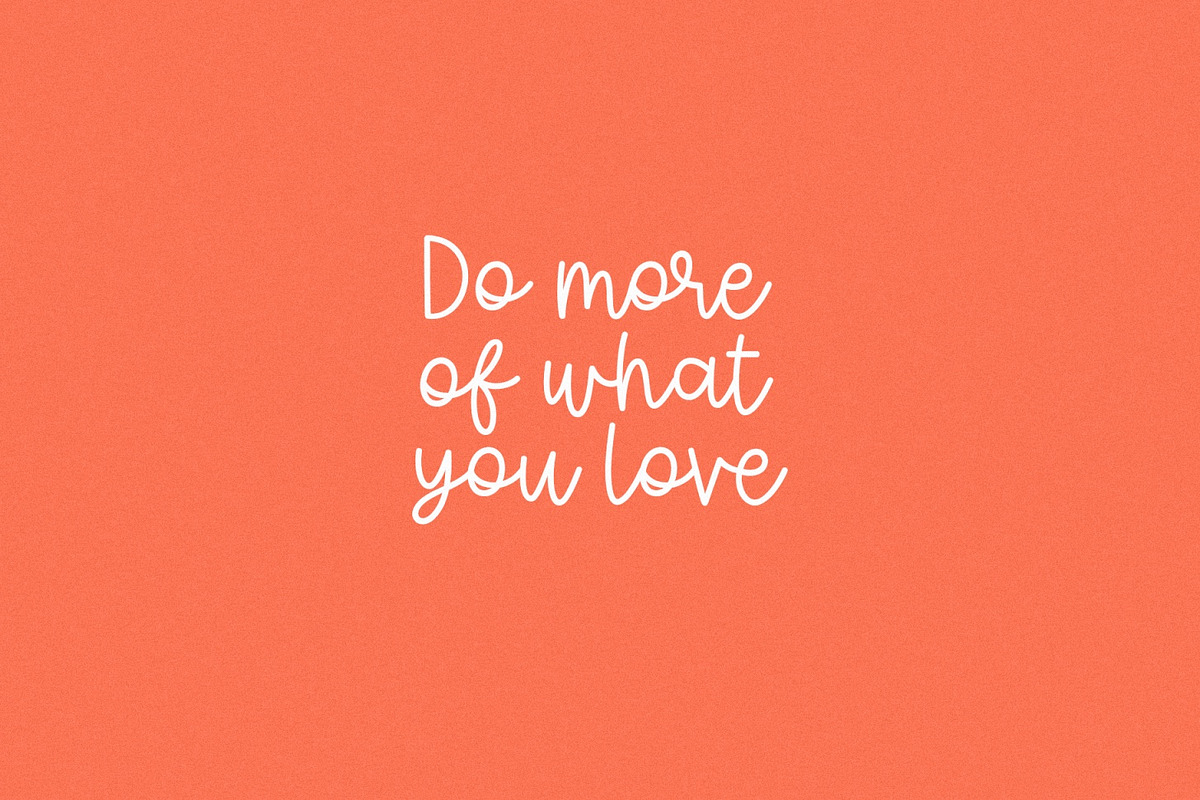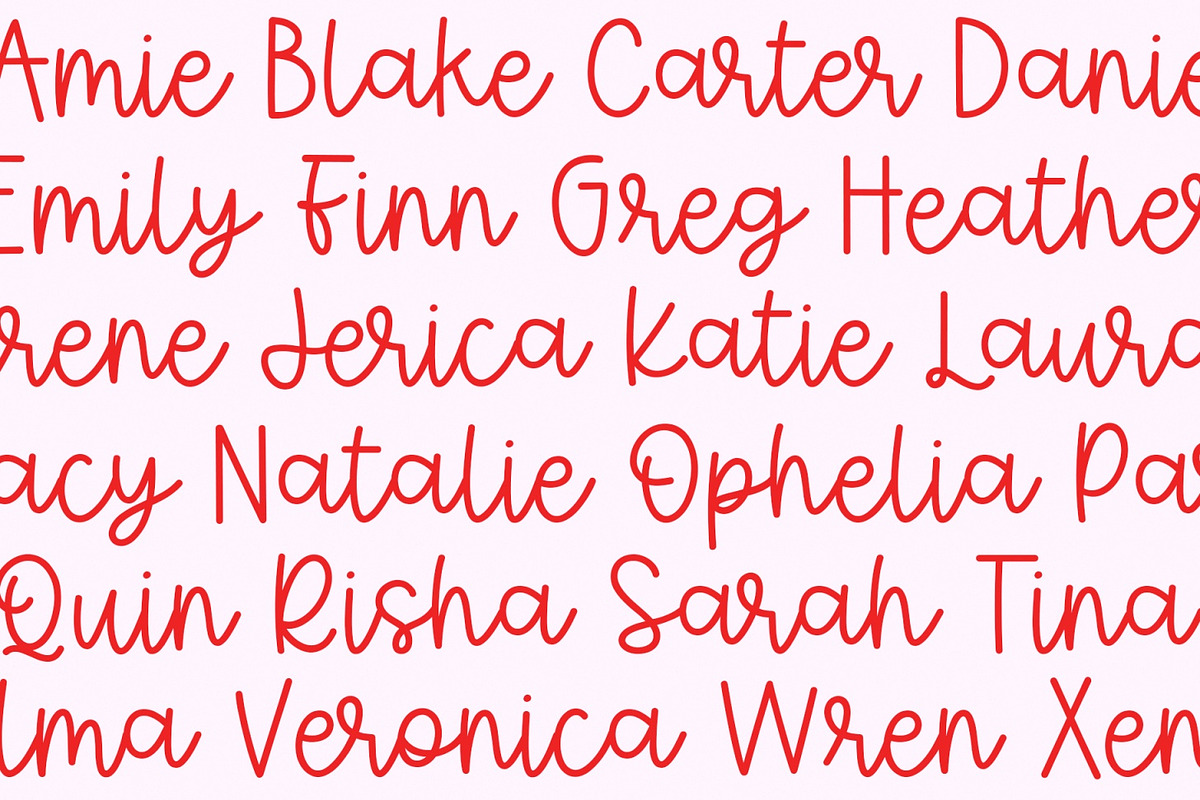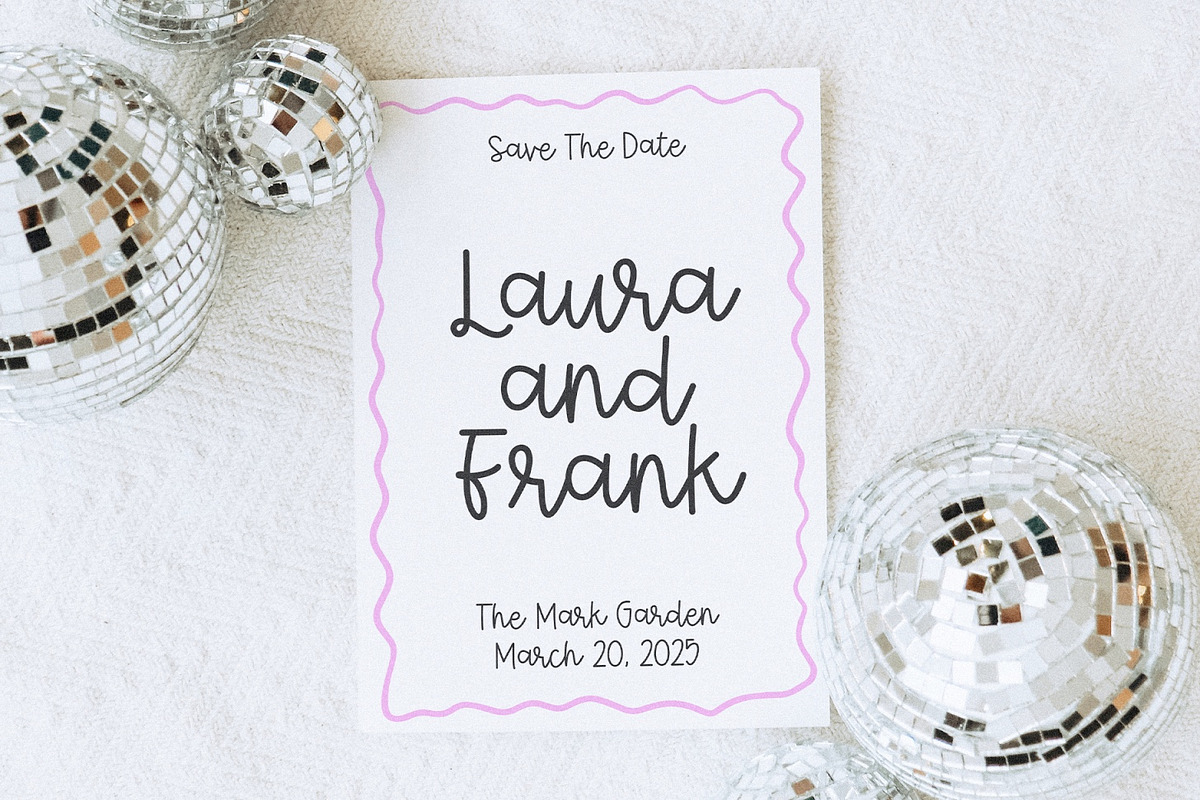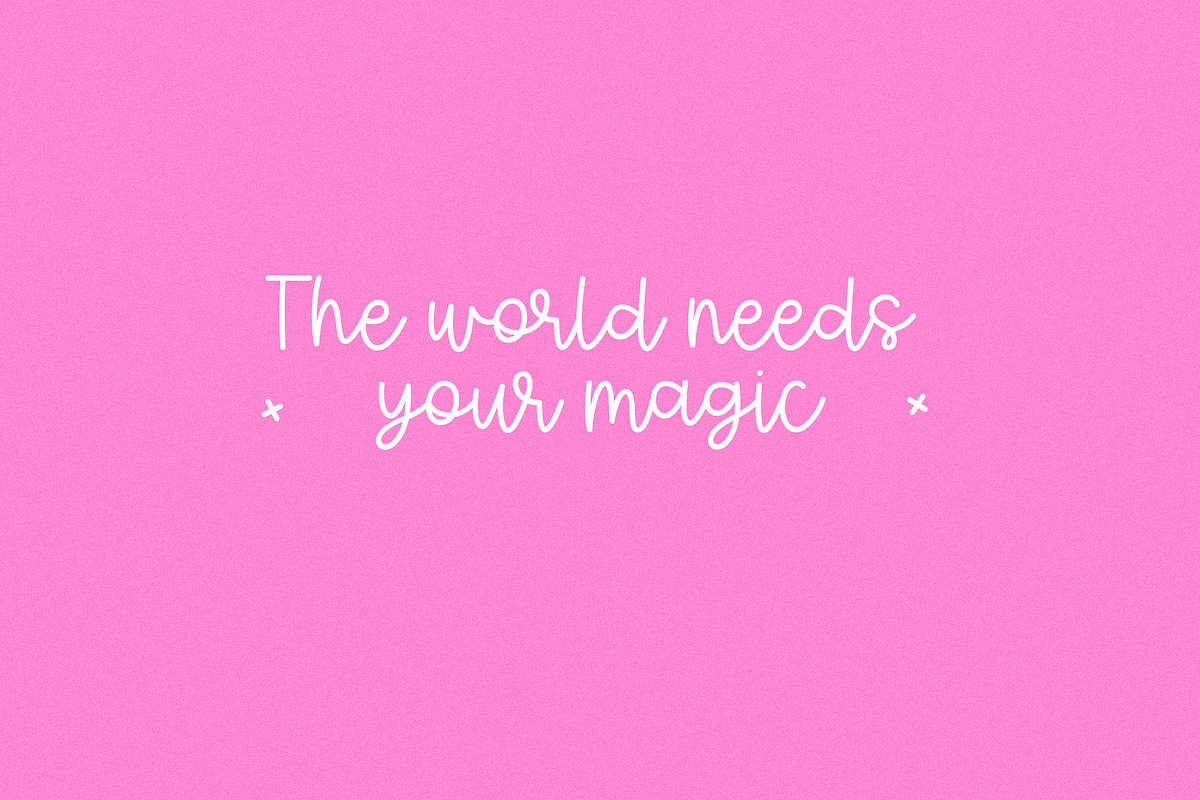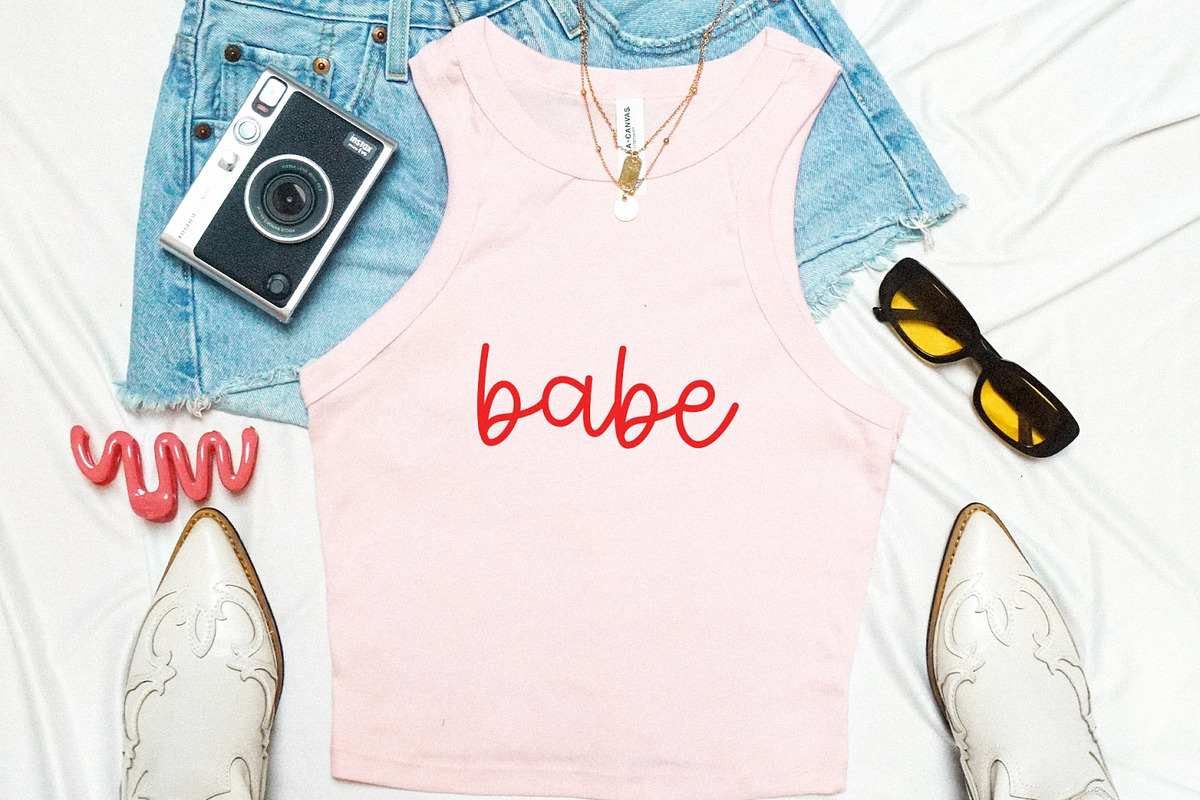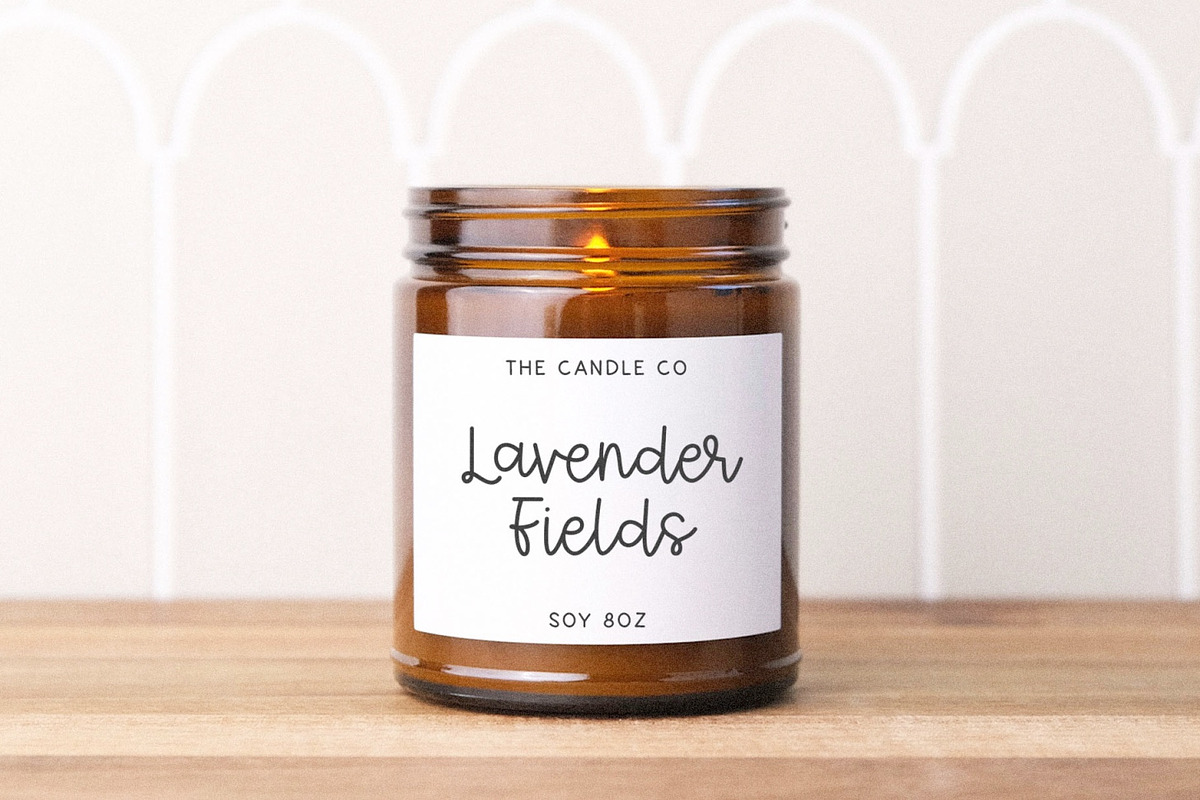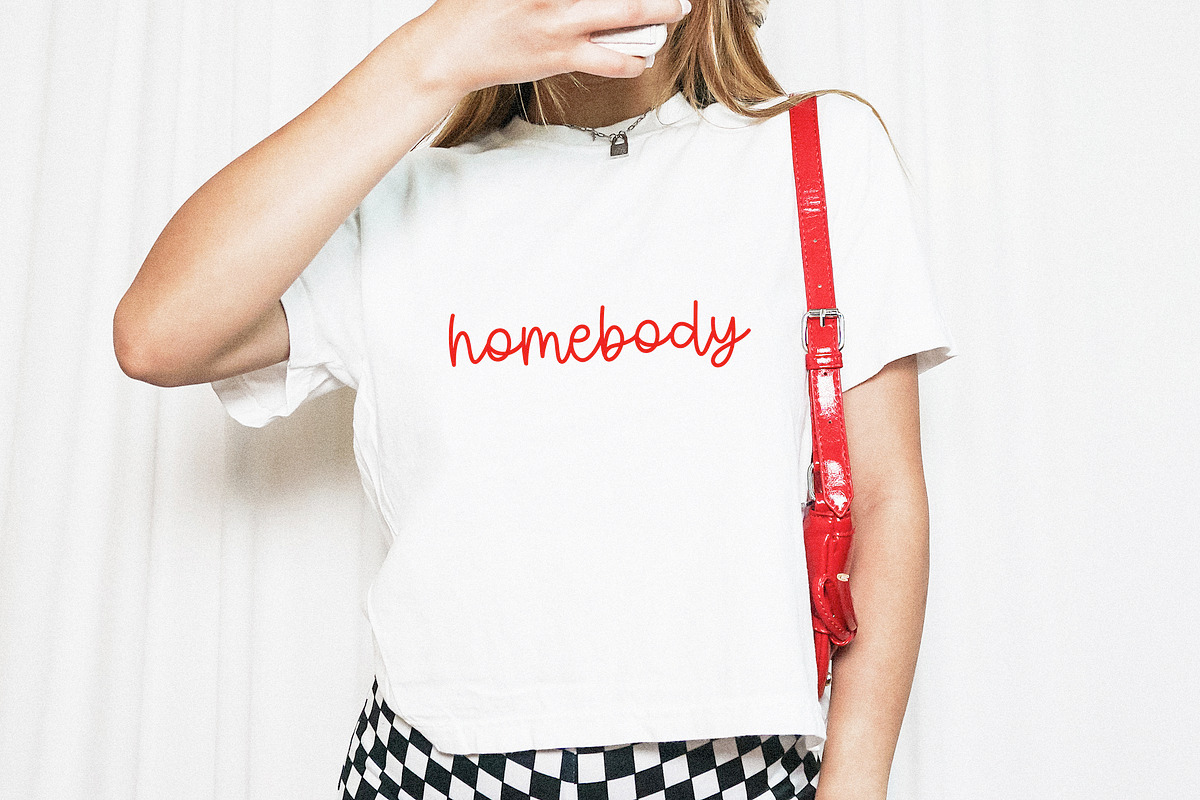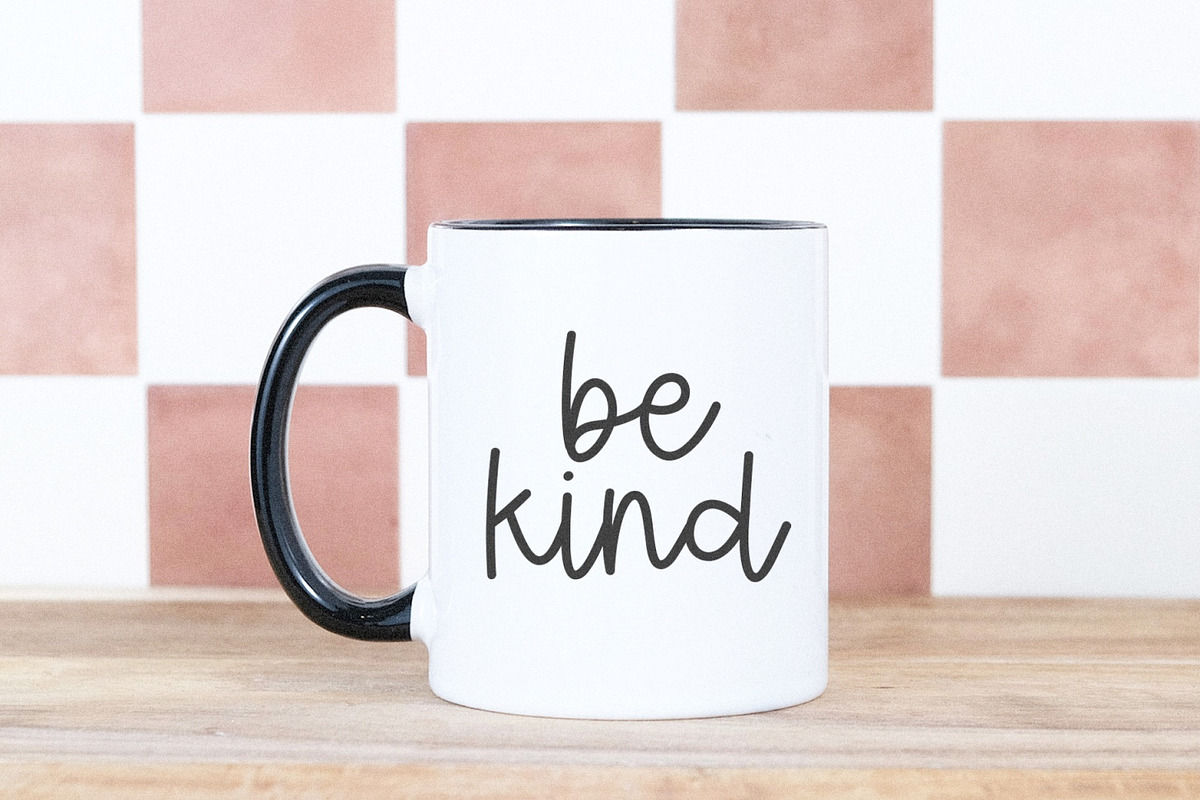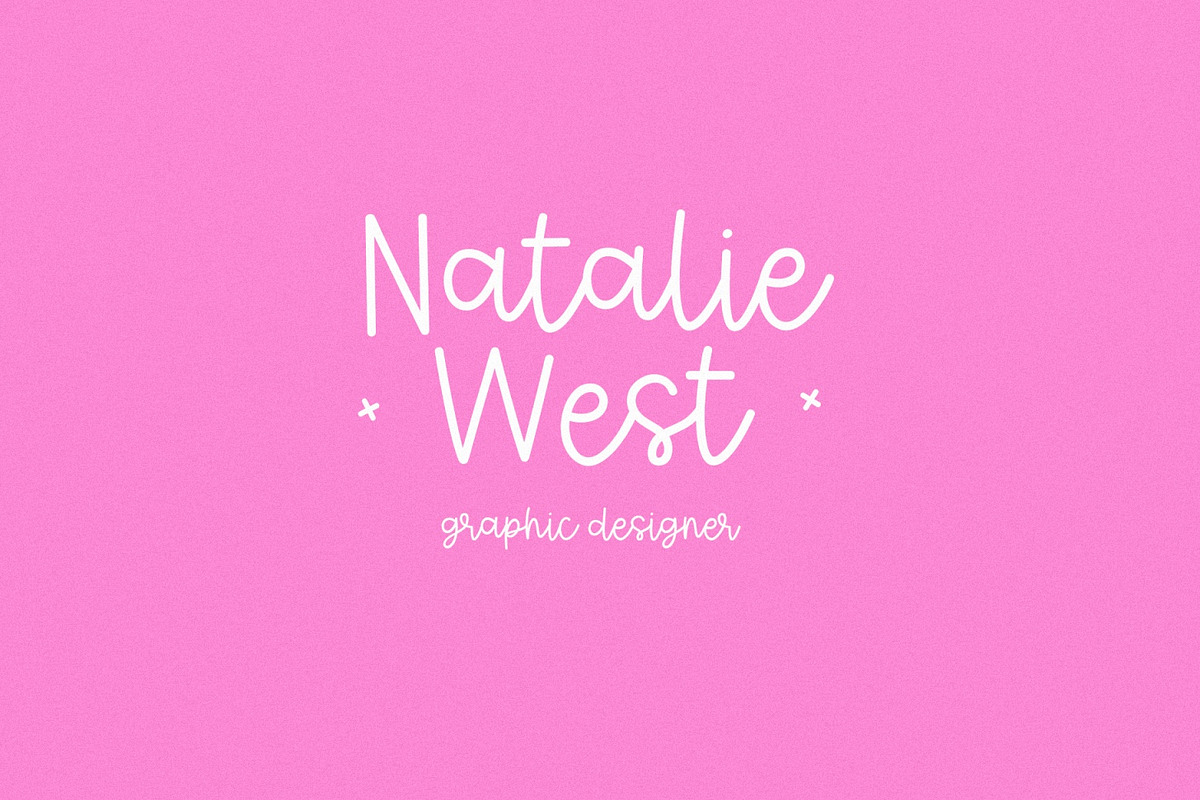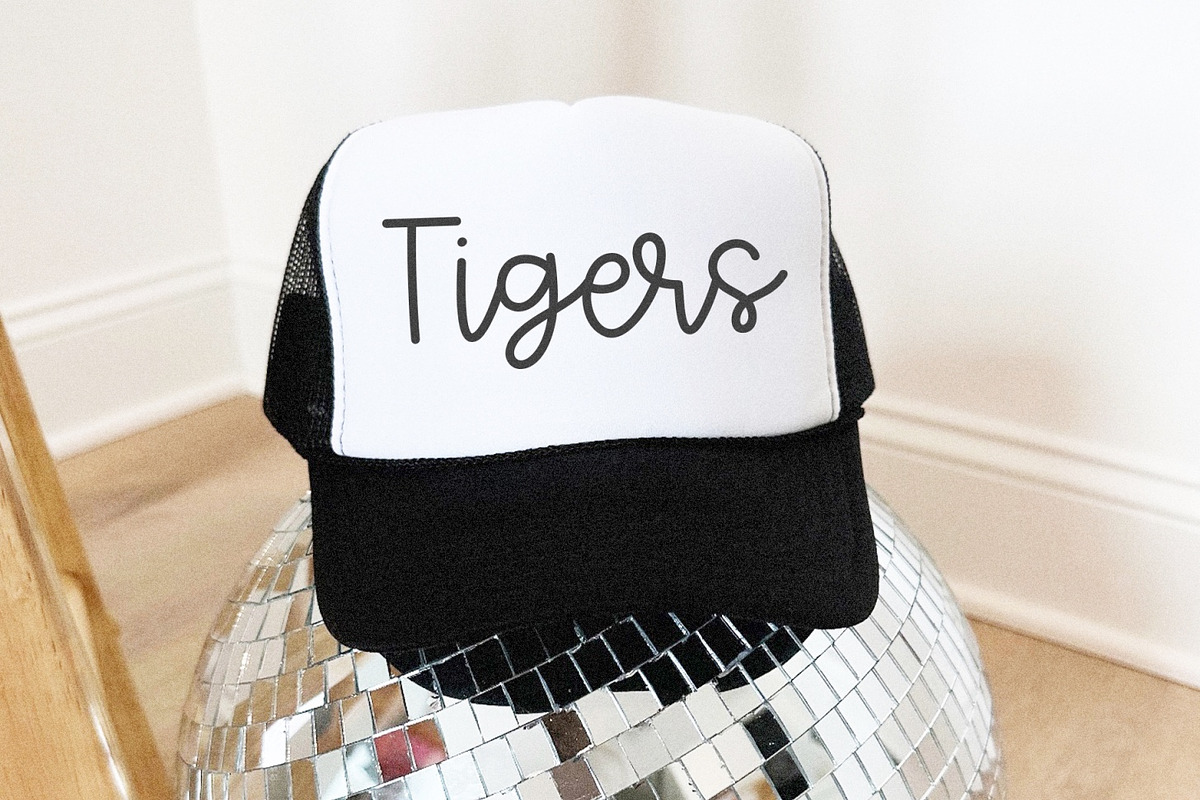
Magic Garden | Cute Script Font
Magic Garden is a cute handwritten script font.
This font is perfect for cricut projects, canva, logos, shirts, svg files, teachers, painted banners and more!